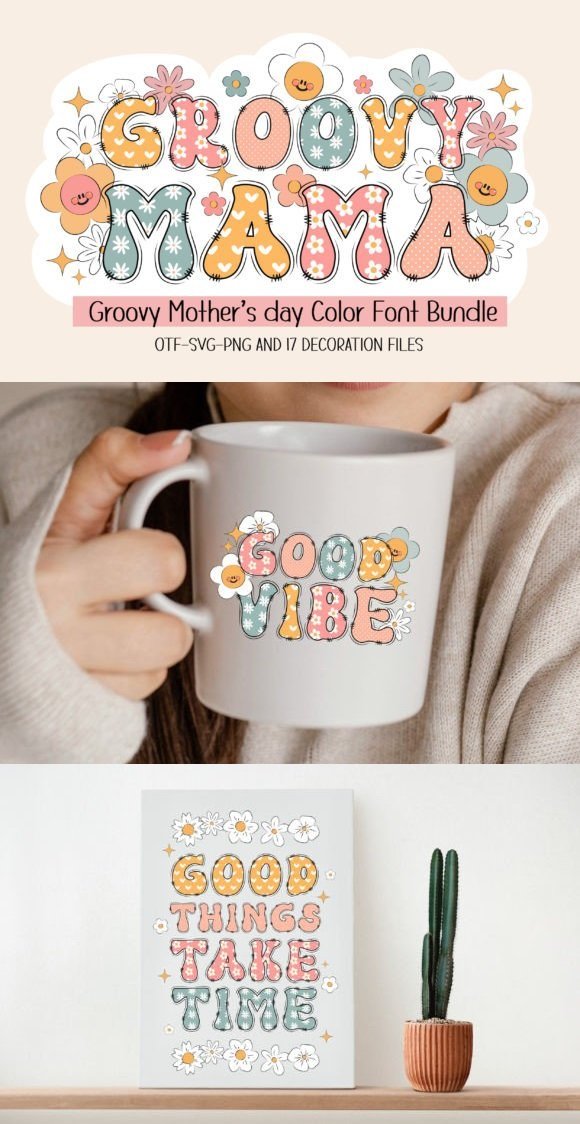
Introducing “Groovy Mama” a font that celebrates the spirit of Mother’s Day with a delightful blend of groovy style and floral patterns. With four unique font styles and special PNG bonuses, this bundle offers endless possibilities for expressing your creativity. Perfect for custom DIY craft projects, personalized names, sublimations, posters, and more, “Groovy Mama” adds a touch of retro charm and maternal love to any design. Let your creativity bloom with this vibrant and versatile font collection, perfect for honoring the special mothers in your life and adding a groovy twist to your creative projects.